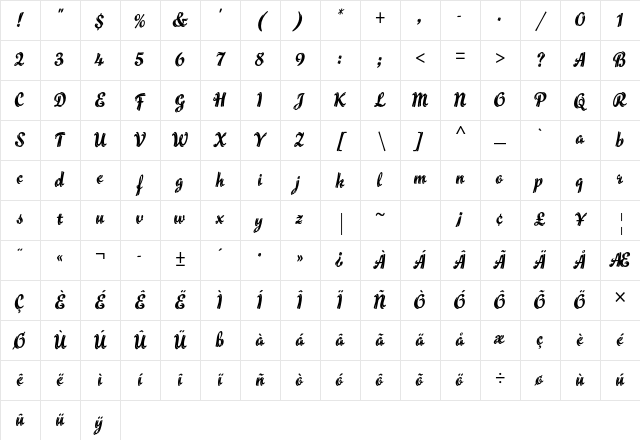
Flamme Std Regular
Designer: Alan Meeks
Design Context for Flamme Std
Flamme Std is a composed and adaptable typeface that performs quietly and consistently across a wide range of design contexts.